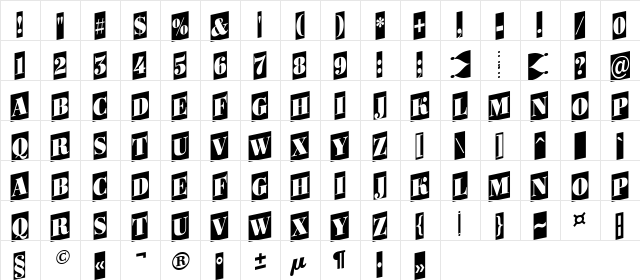
a_BodoniOrtoNrTtlCmUp Regular
Design Context for a_BodoniOrtoNrTtlCmUp Typeface
a_BodoniOrtoNrTtlCmUp takes a measured approach to typography — its balanced proportions and neutral character make it a reliable workhorse for both digital and print work.